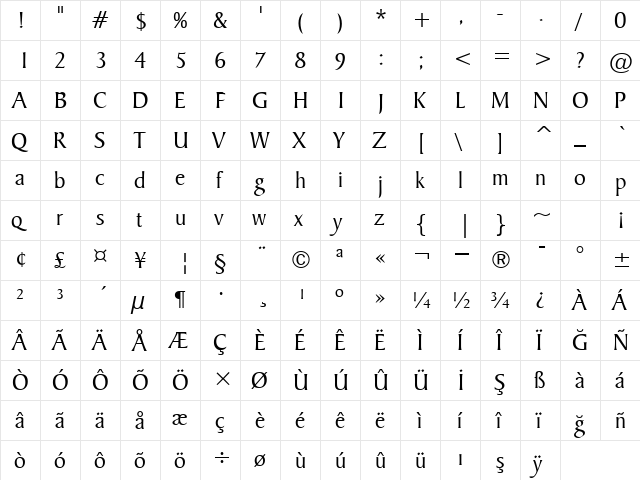
00260 Regular
Design Context for 00260 Typeface
00260 offers clean, dependable letterforms without strong stylistic allegiance, making it a practical choice for designers who need flexibility.